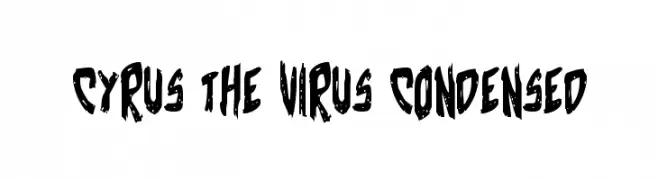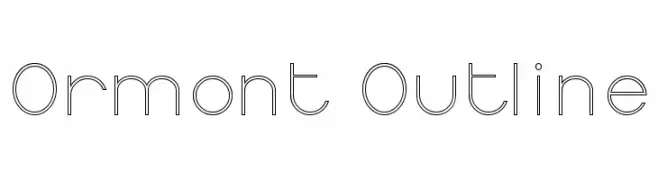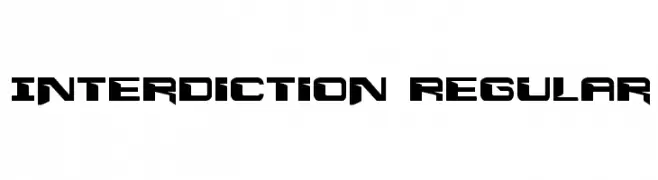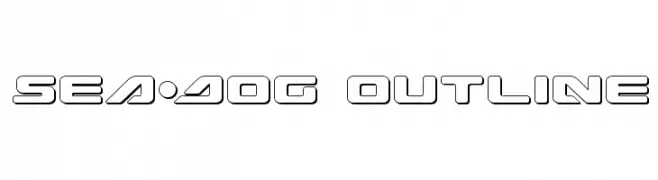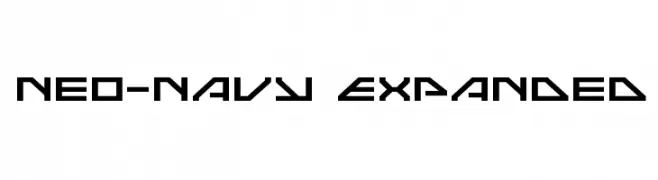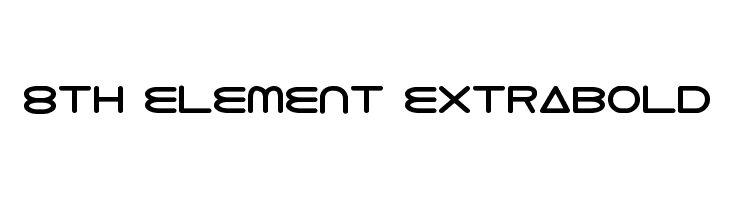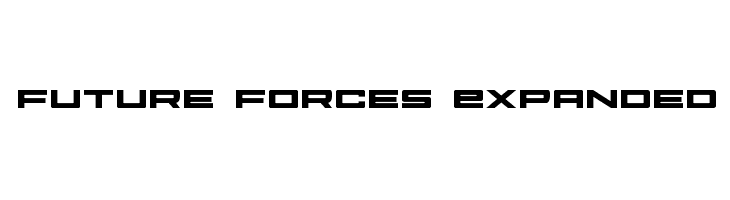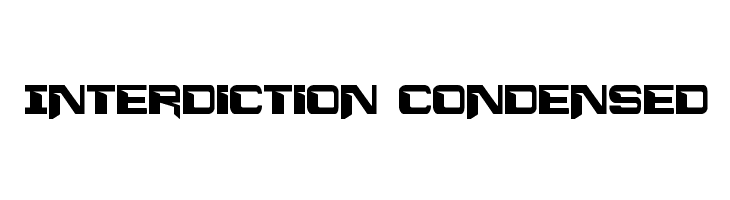
A bold, italic, futuristic font with rounded characters and a sleek design.
A futuristic, geometric font with bold, rounded characters and minimal contrast.
A bold, futuristic font with geometric shapes and sharp angles.
A bold, geometric outline font with a condensed and modern style.
A bold, distressed, and condensed font with a grungy, graffiti-like style.
A modern, geometric outline font with consistent line weight and balanced design.
A bold, futuristic font with geometric and angular shapes, perfect for modern designs.
A bold, futuristic font with geometric shapes and sharp angles.
A bold, futuristic outline font with geometric shapes and sharp angles.
A bold, geometric font with a futuristic and angular design.